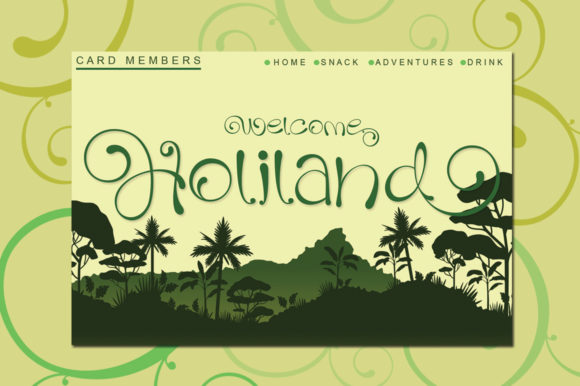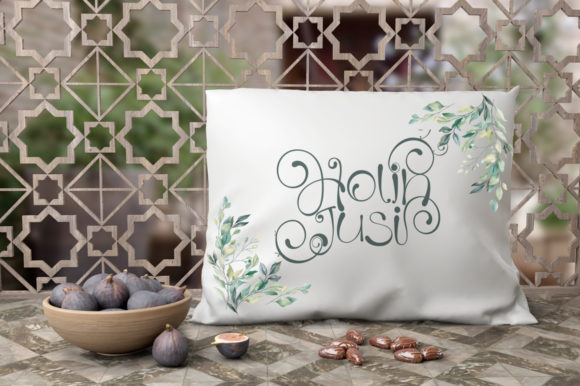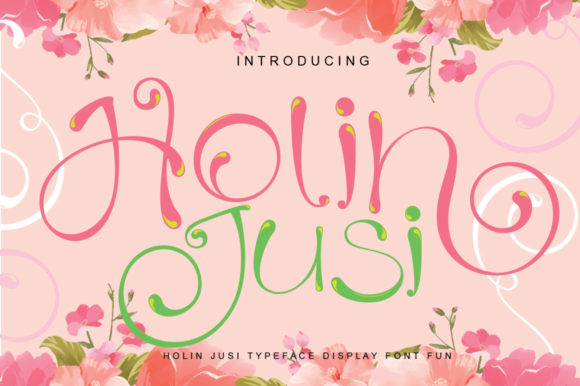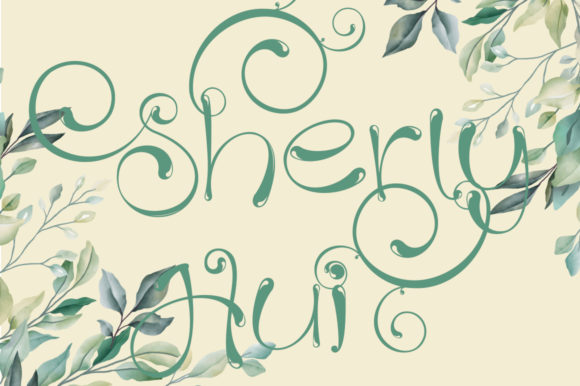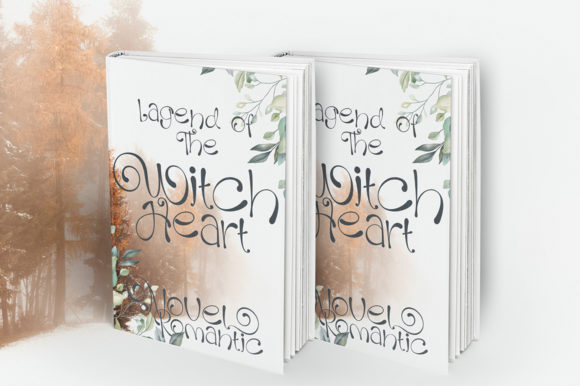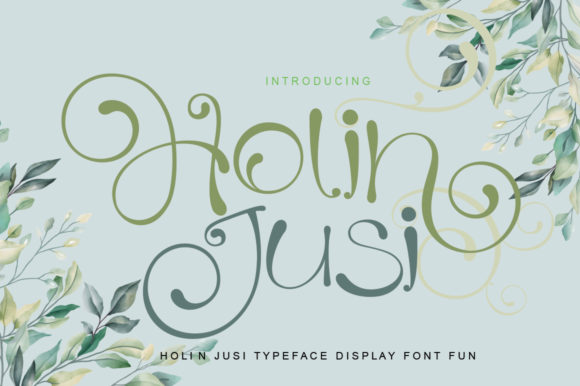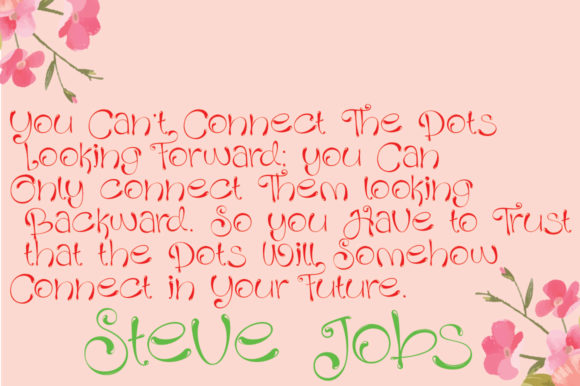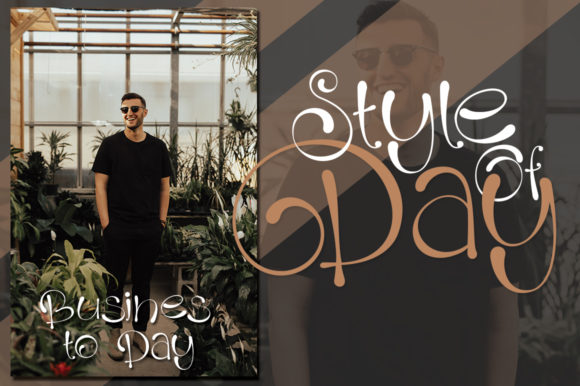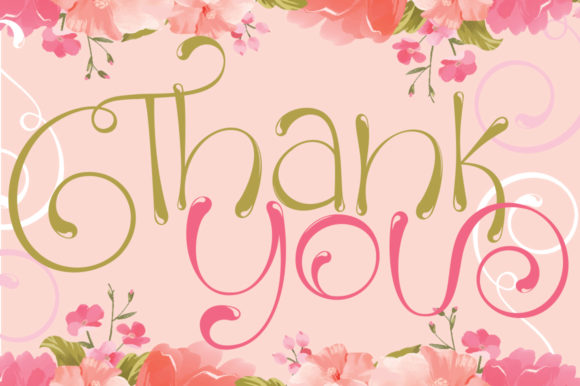
Holiland Font
About Holiland Font
Holiland is a cute font that can be used for a wide range of applications. Use it to add a cheerful touch to your designs!